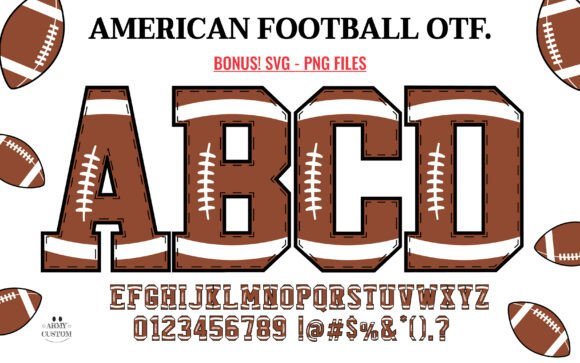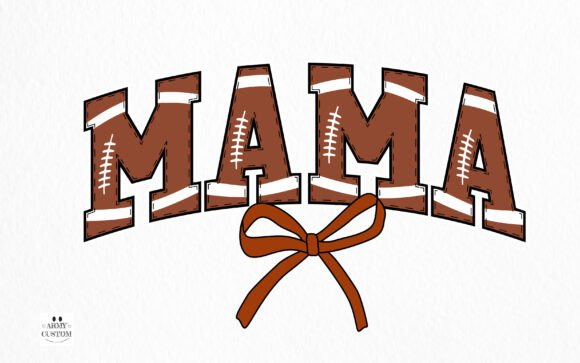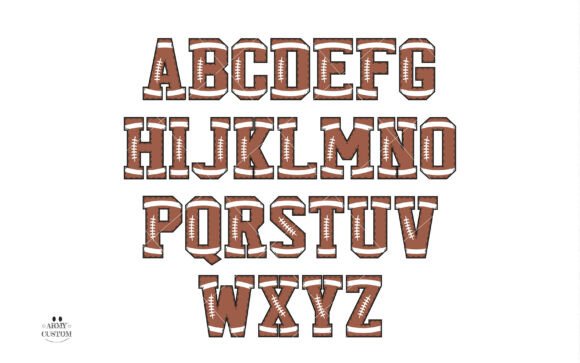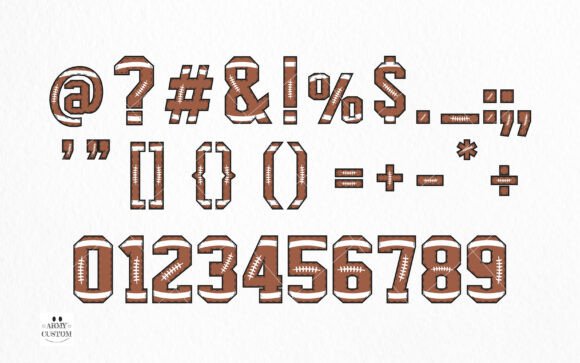
The Perfect Hail Mary for Designers: American Football Font
Do you remember the thrill of your first touchdown, the rush of adrenaline as you sprinted across the field, or the sense of camaraderie with your teammates as you celebrated a hard-fought win? For many of us, American football evokes a sense of excitement, competition, and community. And now, designers can tap into that same energy with the American Football Font, a dynamic and bold typeface that embodies the spirit of the game.
This innovative font is more than just a design element – it’s an homage to the beloved sport that inspires it. With its unique blend of athleticism and style, the American Football Font is the perfect choice for designers looking to add a touch of excitement and competitiveness to their projects. Whether you’re creating a sports-themed logo, designing a jersey, or crafting a promotional campaign, this font is sure to score big with your audience.
American Football Font Key Features
- Font Family: American Football is a sans-serif font family designed specifically for displaying sports-related content.
- Unique Characteristics: Features custom-designed numerals and letterforms that resemble sports jerseys and stadium signage, adding a touch of authenticity to sports-related content.
Review: American Football Font
Overall, I think the American Football Font is a solid effort, but it’s not without its quirks.
- The font’s bold, energetic feel captures the spirit of American football, making it perfect for sports-related designs.
- The font is highly customizable, allowing designers to adjust the font size, color, and spacing to suit their needs.
- The font is well-suited for use in headlines and titles, where its boldness can really shine.
- The font’s boldness can sometimes make it difficult to read, especially at smaller font sizes.
- The font lacks a clear, distinctive style that sets it apart from other fonts in the same category.
- The font may not be the best choice for body text, where a more legible font is preferred.
While the American Football Font has its strengths, it ultimately feels like a safe, unremarkable choice. It’s not a bad font by any means, but it doesn’t particularly stand out in a crowded market. If you’re looking for a font that’s perfect for sports-related designs, this might be a good option. But if you’re looking for something a bit more unique or versatile, you might want to keep looking.
Use the American Football Font to add a touch of sports-themed flair to your designs. Common use cases include:
– Creating sports-themed invitations and party materials
– Designing sports logos and branding materials
– Adding a sports-themed twist to educational materials and presentations